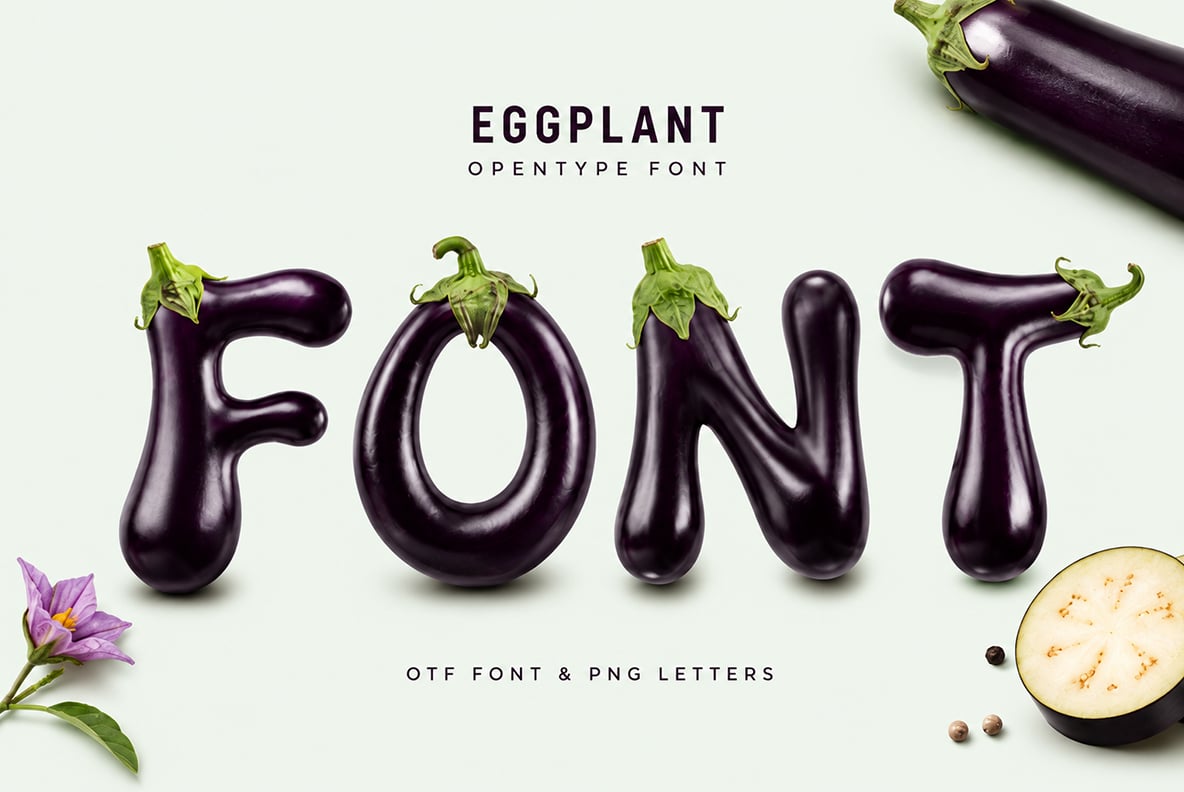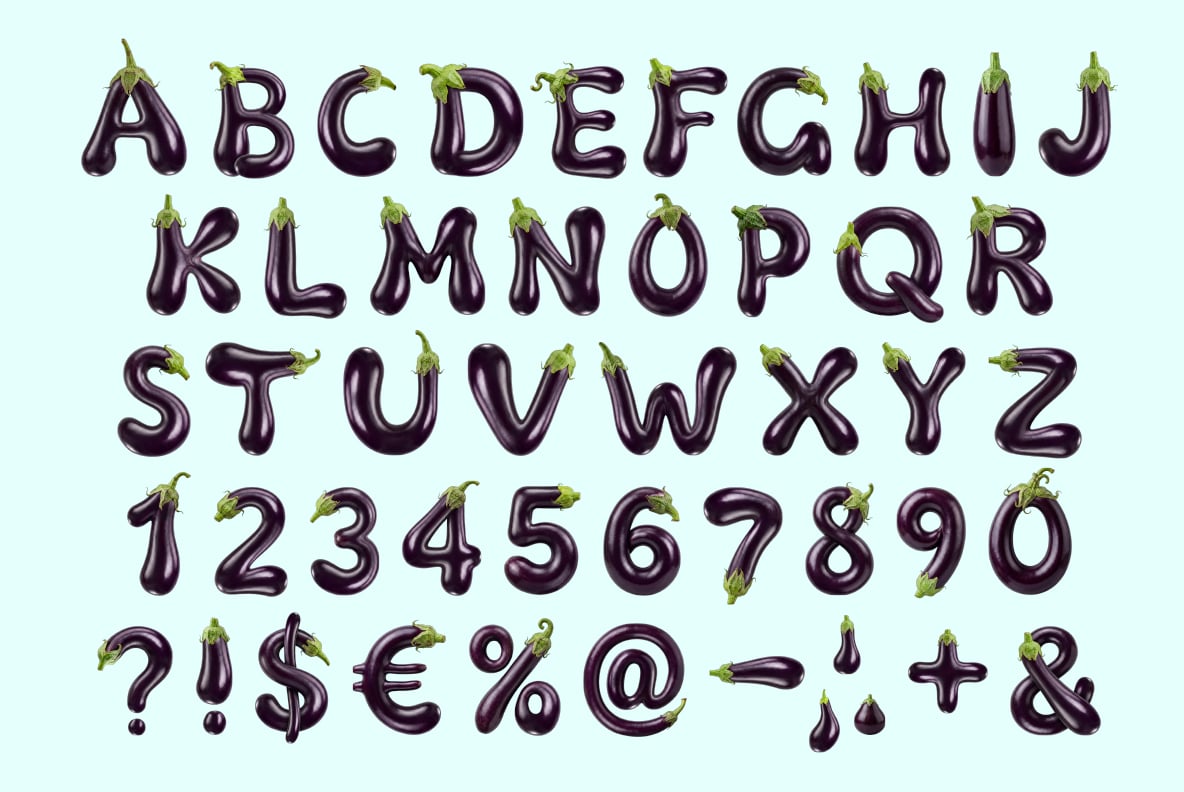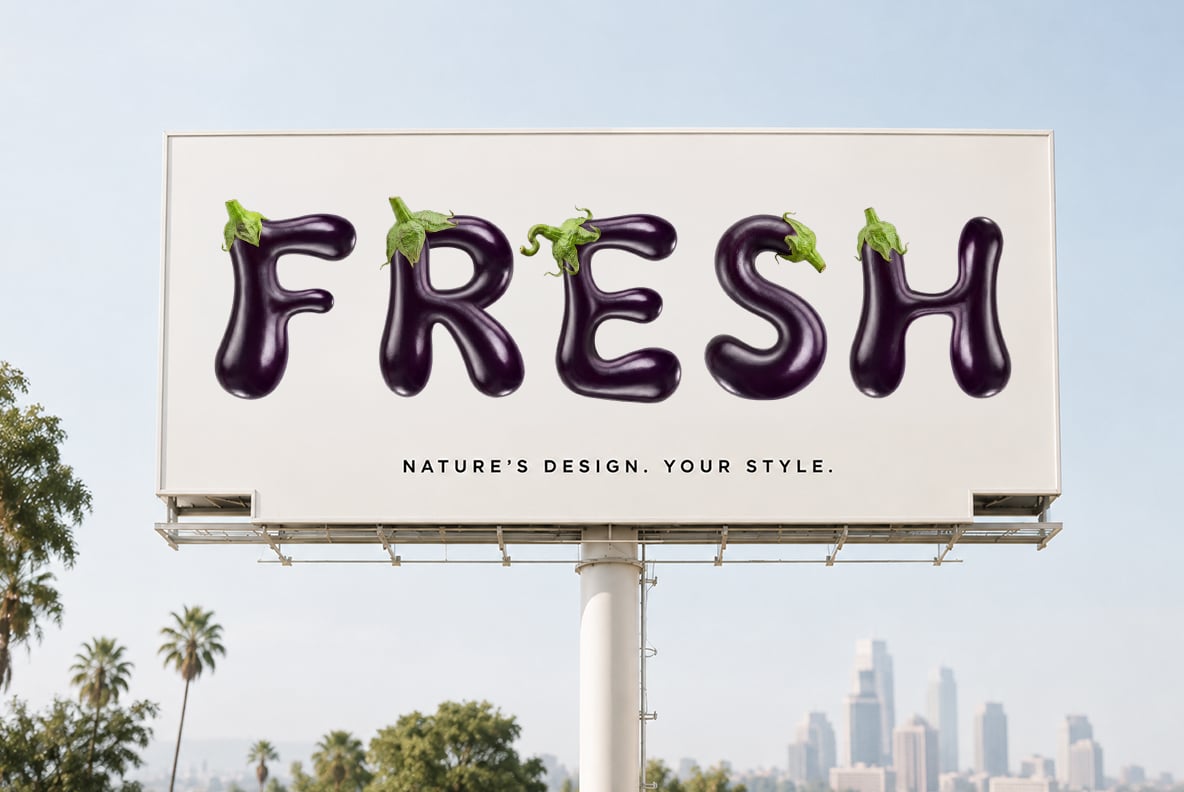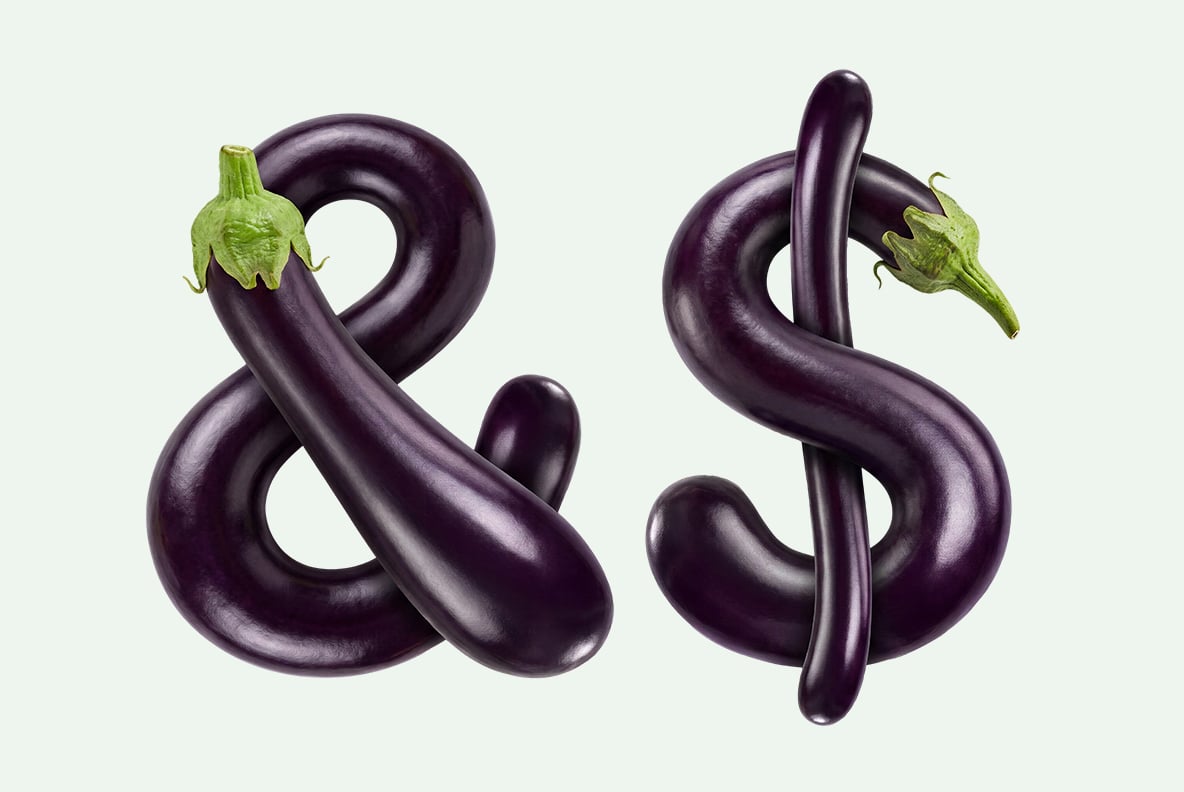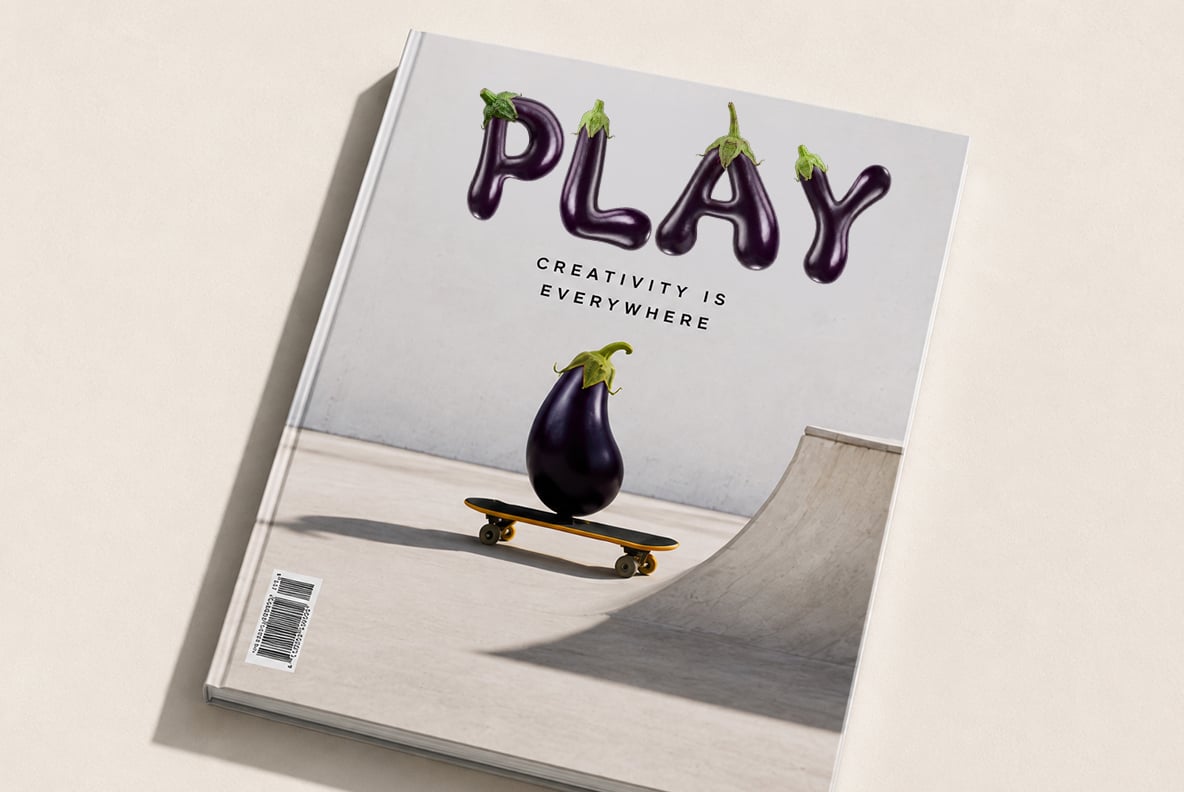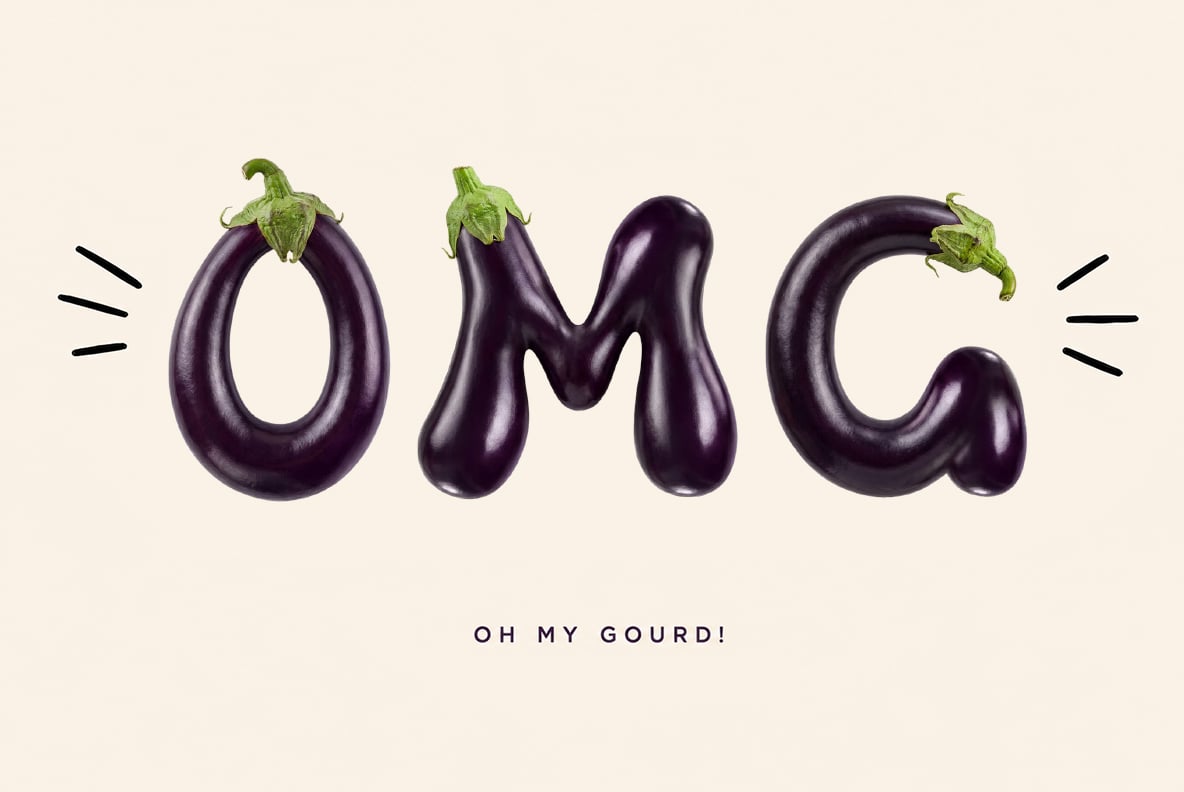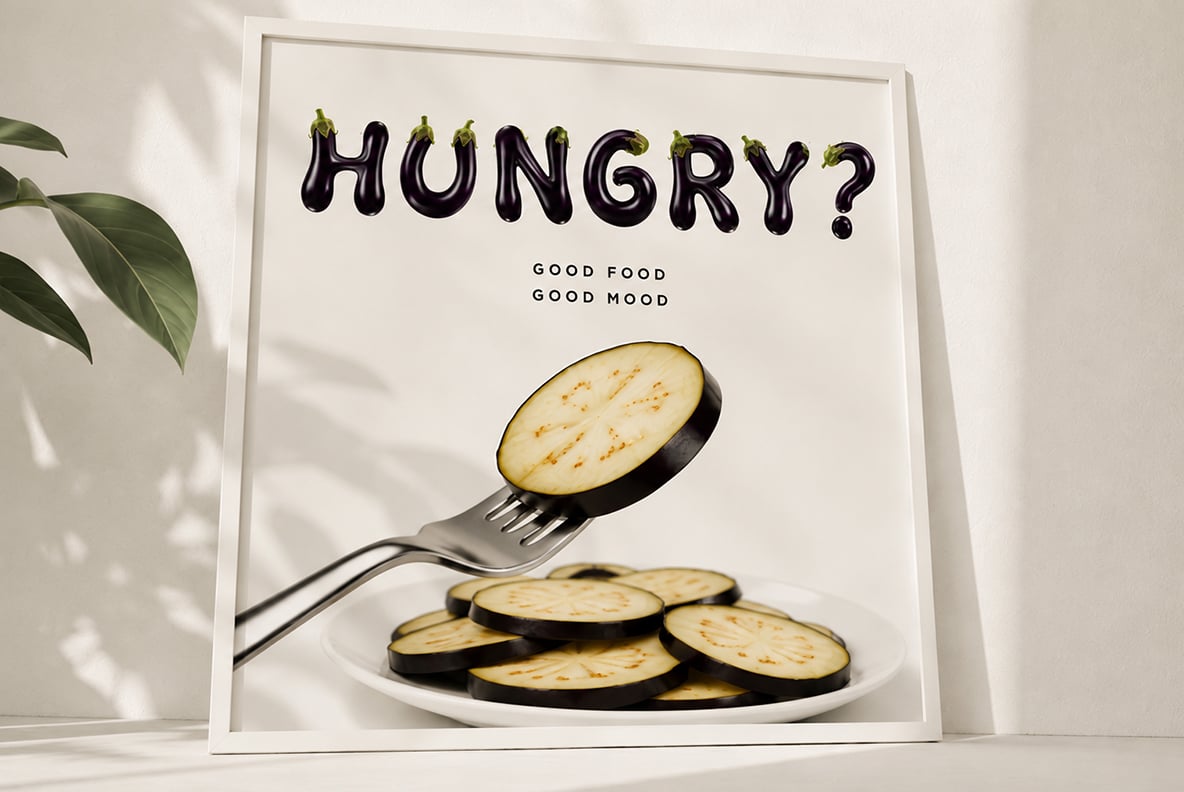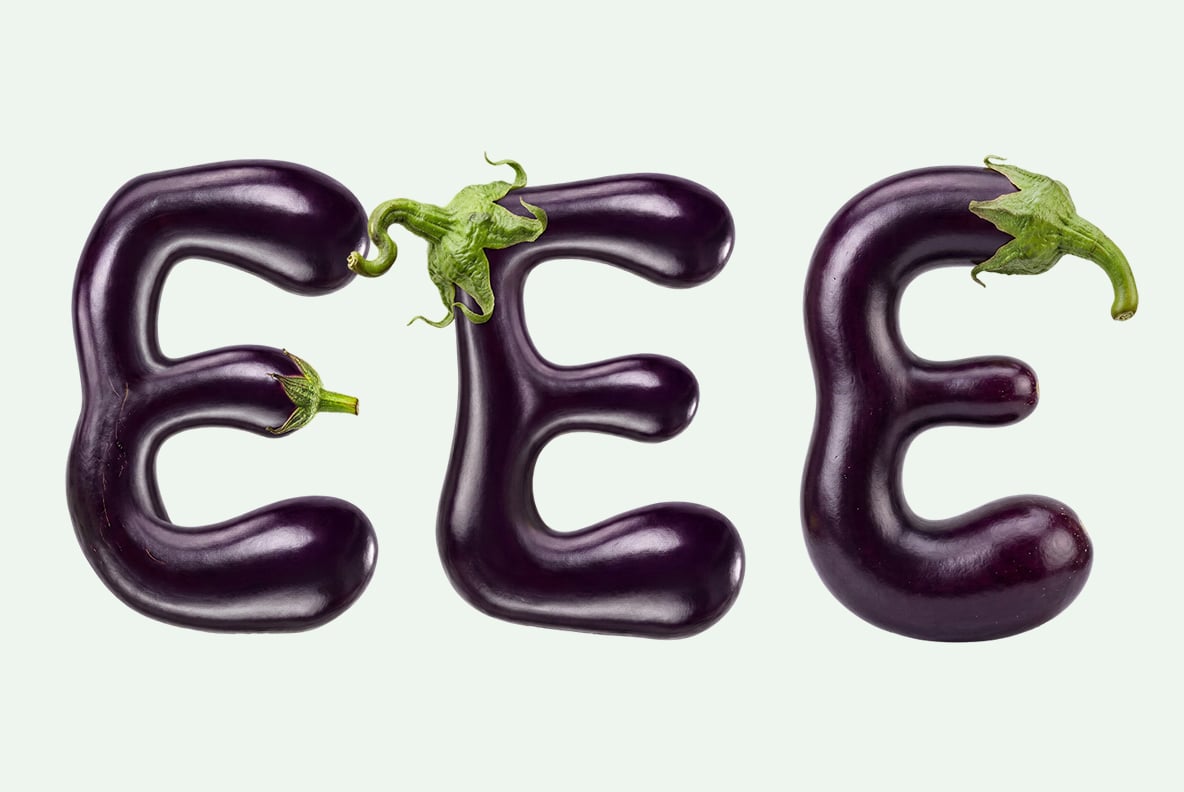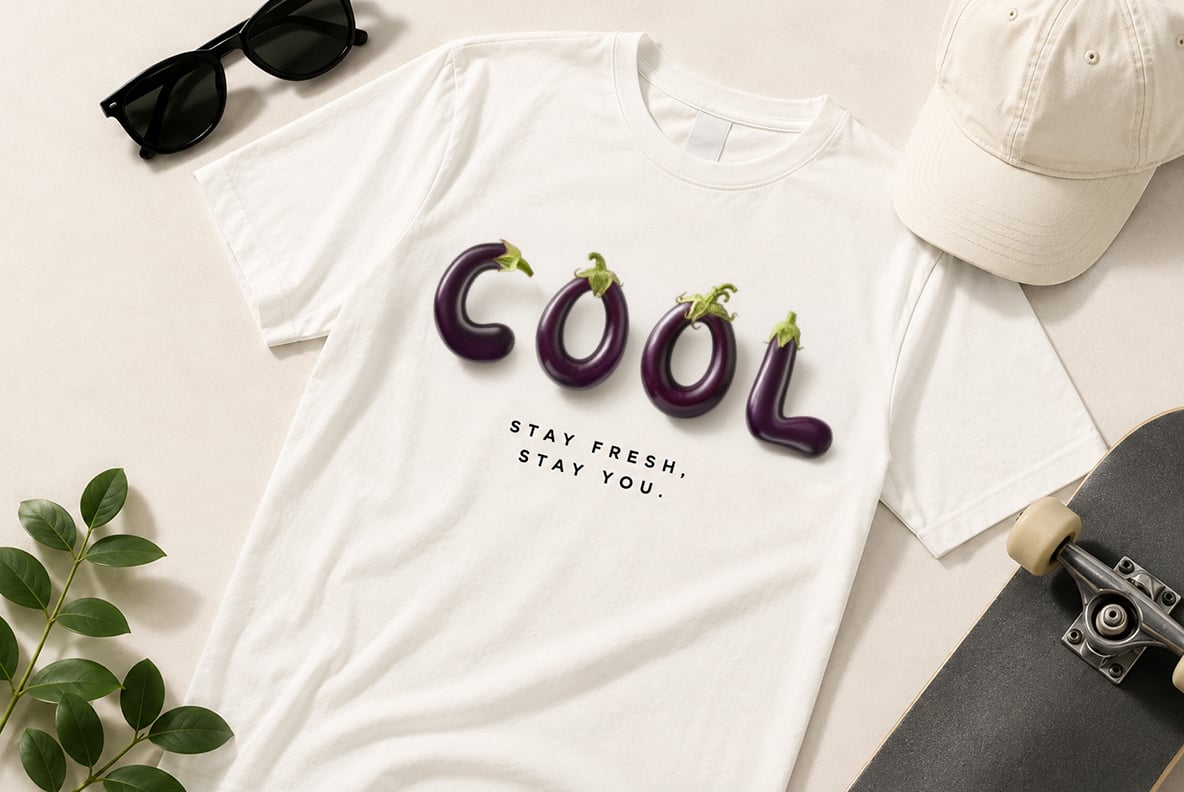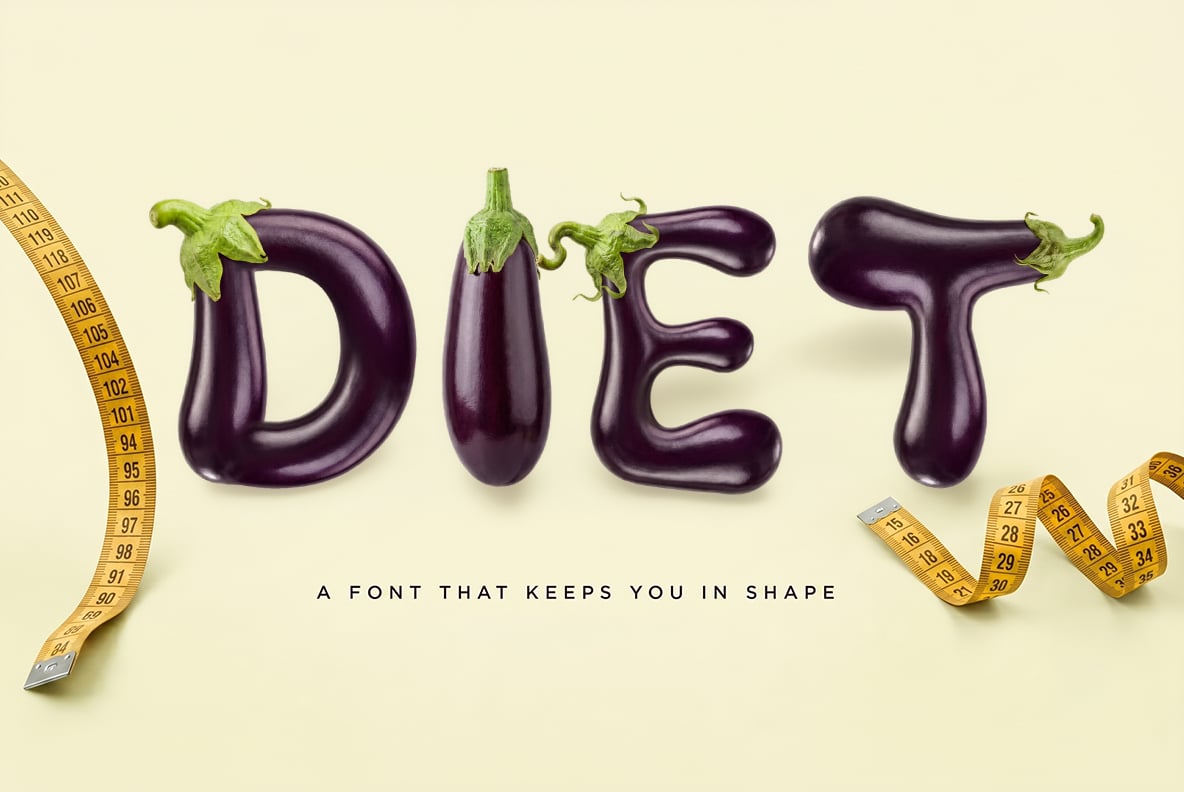
Eggplant Font
Eggplant Font is a playful typeface inspired by the rich shapes and glossy texture of fresh eggplants. Every character is carefully designed to preserve a natural organic appearance while remaining highly readable and full of personality. The package includes an OpenType (OTF) font for effortless typing and a complete set of individual PNG letters with transparent backgrounds, making it perfect for custom compositions, branding, packaging, social media, posters, invitations, stickers, apparel, and creative projects. Whether you're creating humorous food-themed designs or bold visual identities, Eggplant Font adds a fresh, unique, and memorable touch to every project with realistic handcrafted detail.